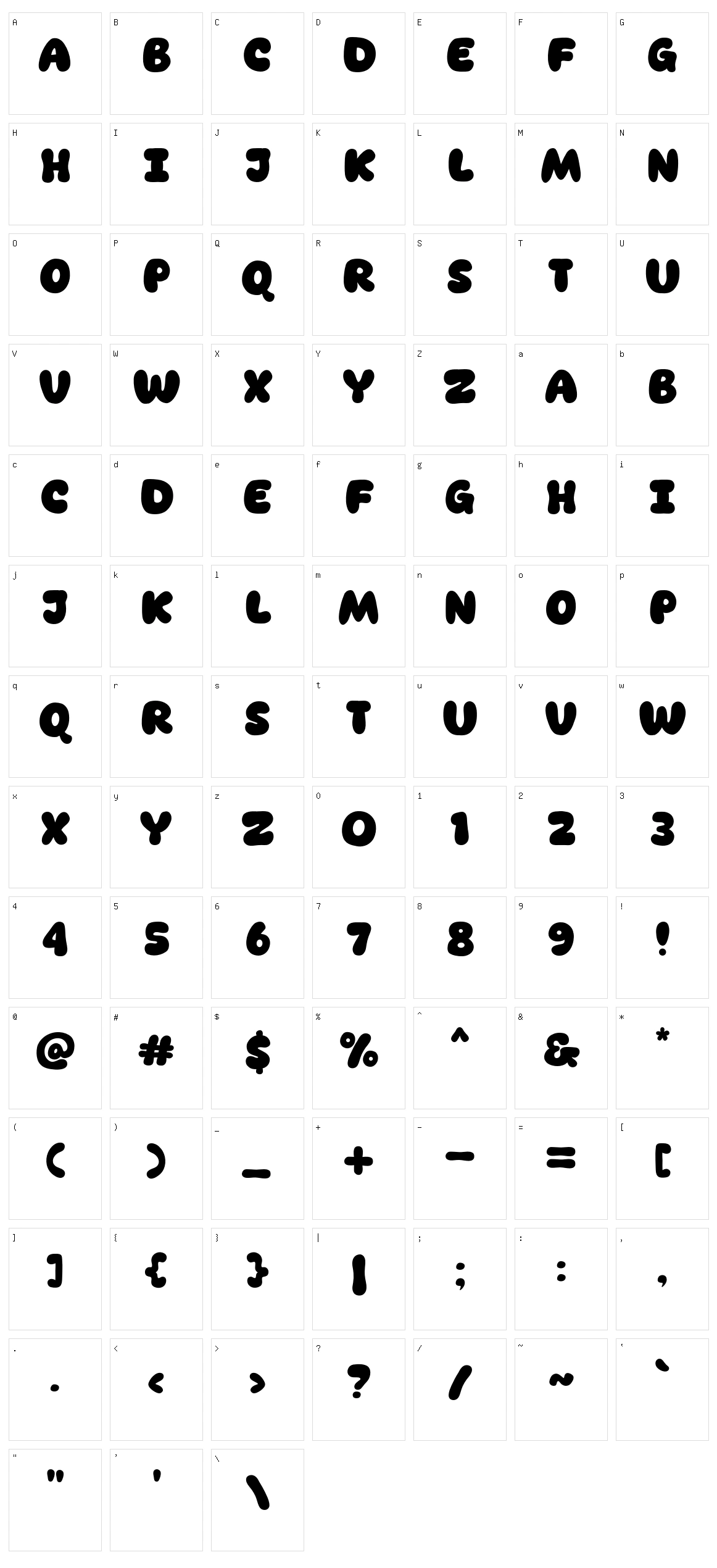
The free font Sunday Burger is carefully designed by Khurasan, showcasing a thoughtful balance of creativity and usability and falls under the Cartoon font style. When you download the ZIP file, it contains only 619.81 KB of font files, making it lightweight and quick to download. Please review the license details below to understand permitted usage and distribution rights. If license information is not available, we recommend using this font for personal projects only or contacting the author directly for commercial usage permissions.